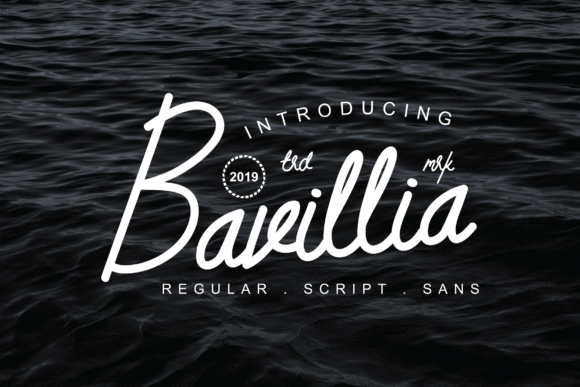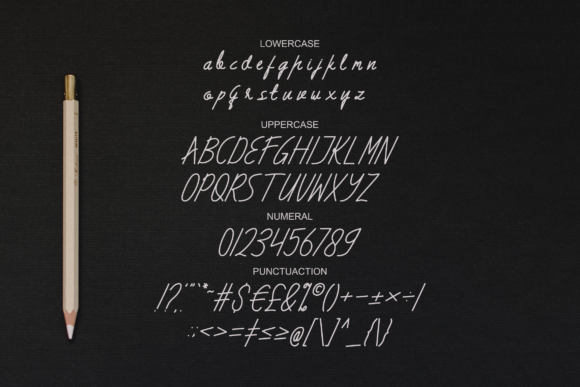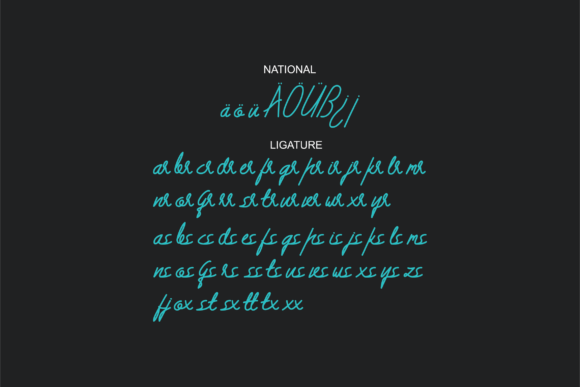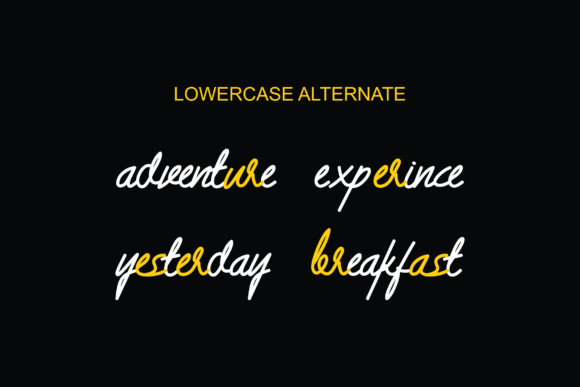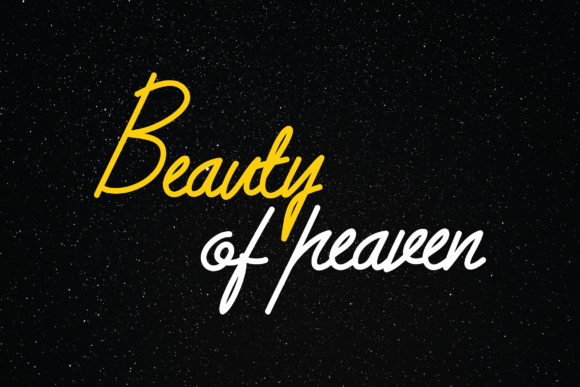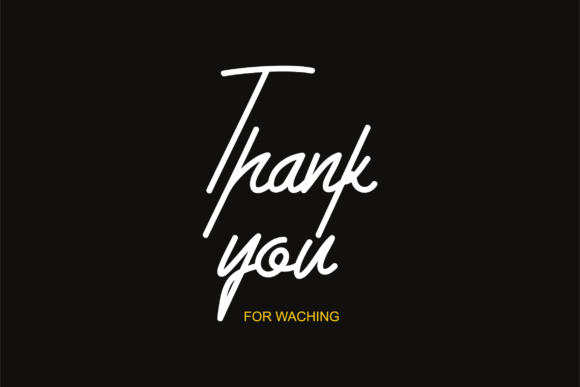
Bavillia Font
About Bavillia Font
The Bavillia is a vintage hand-lettered font. It has great readability and is perfect for adding a natural and modern look to your design.
It’s perfect for logos, short quotes, branding, or other types of artistic-vintage designs.